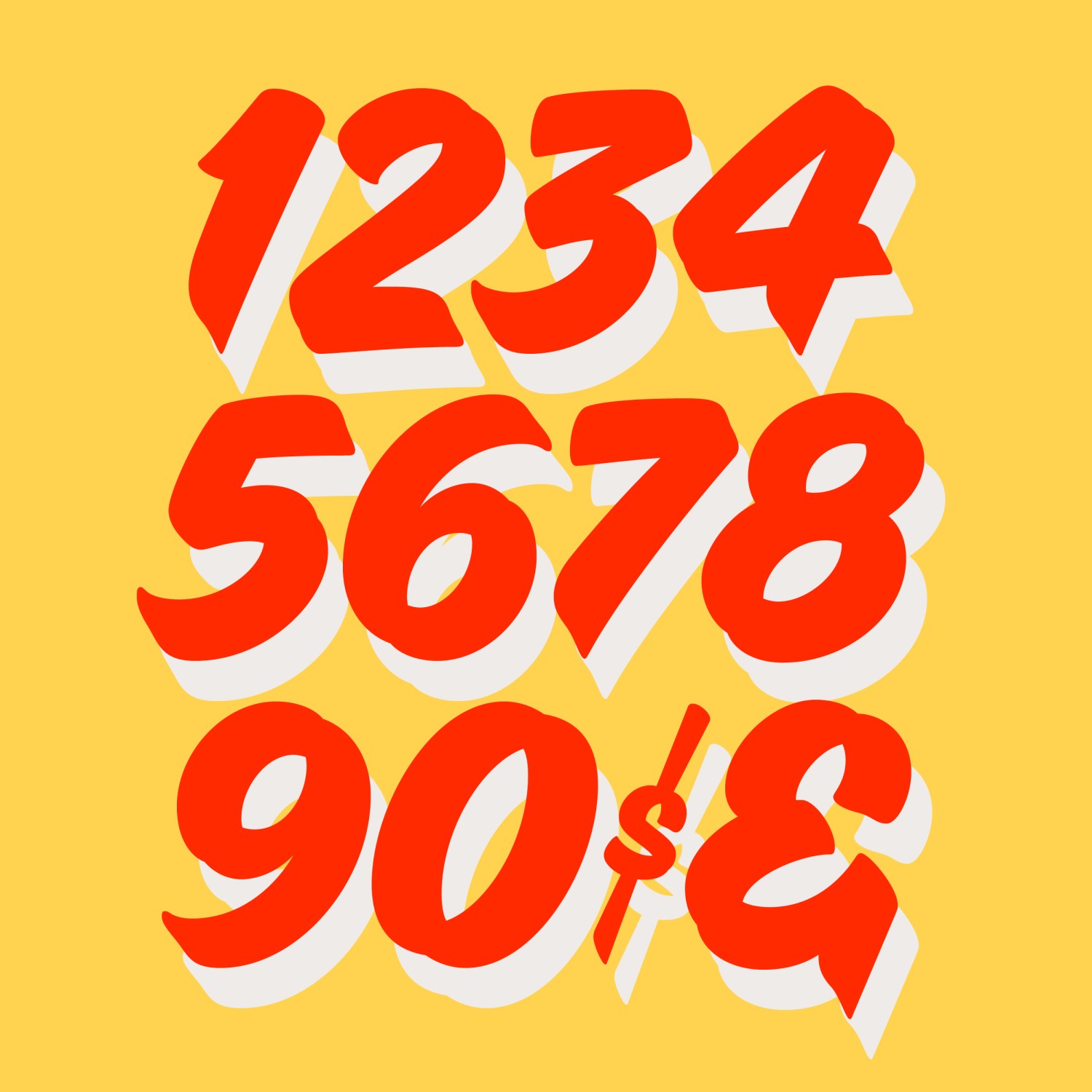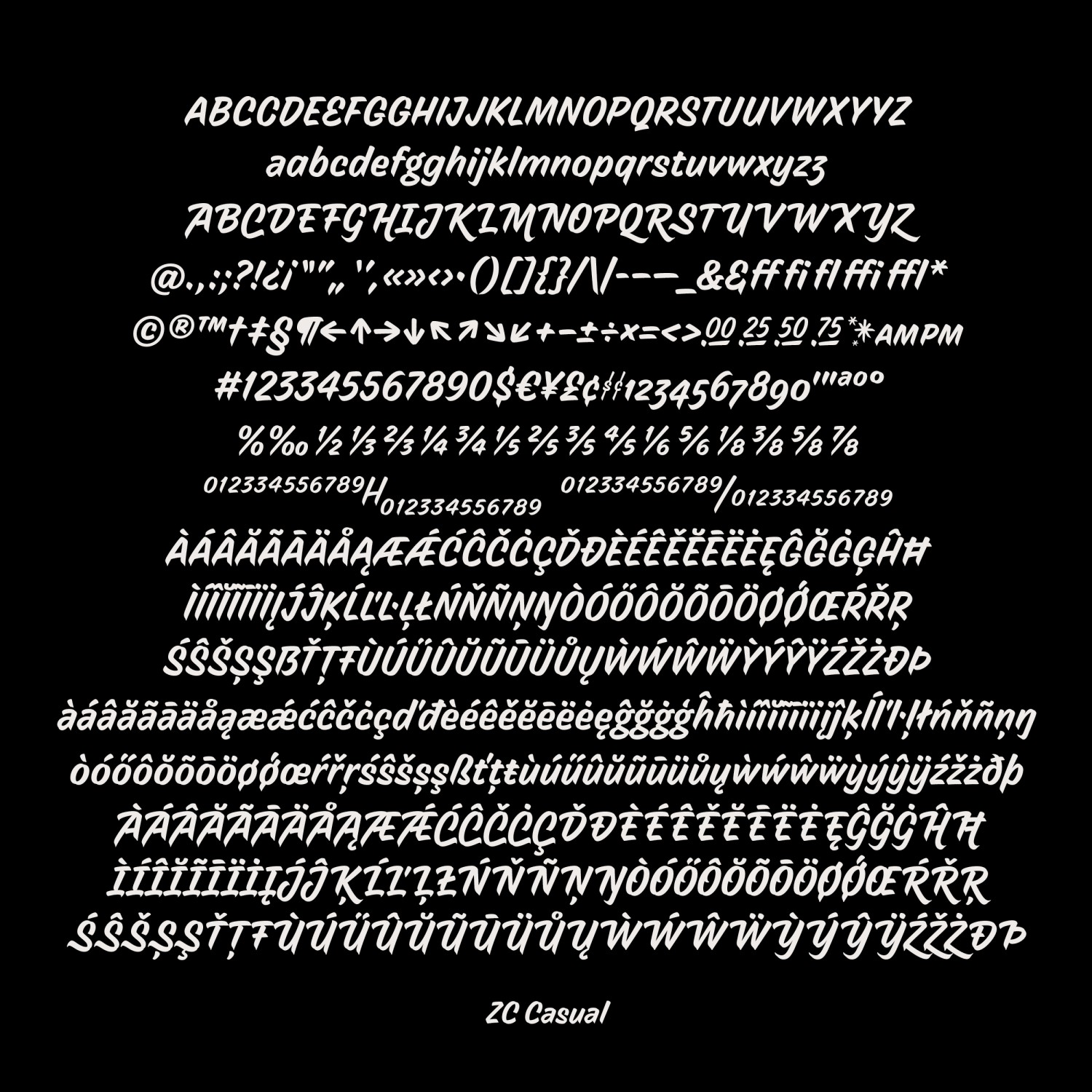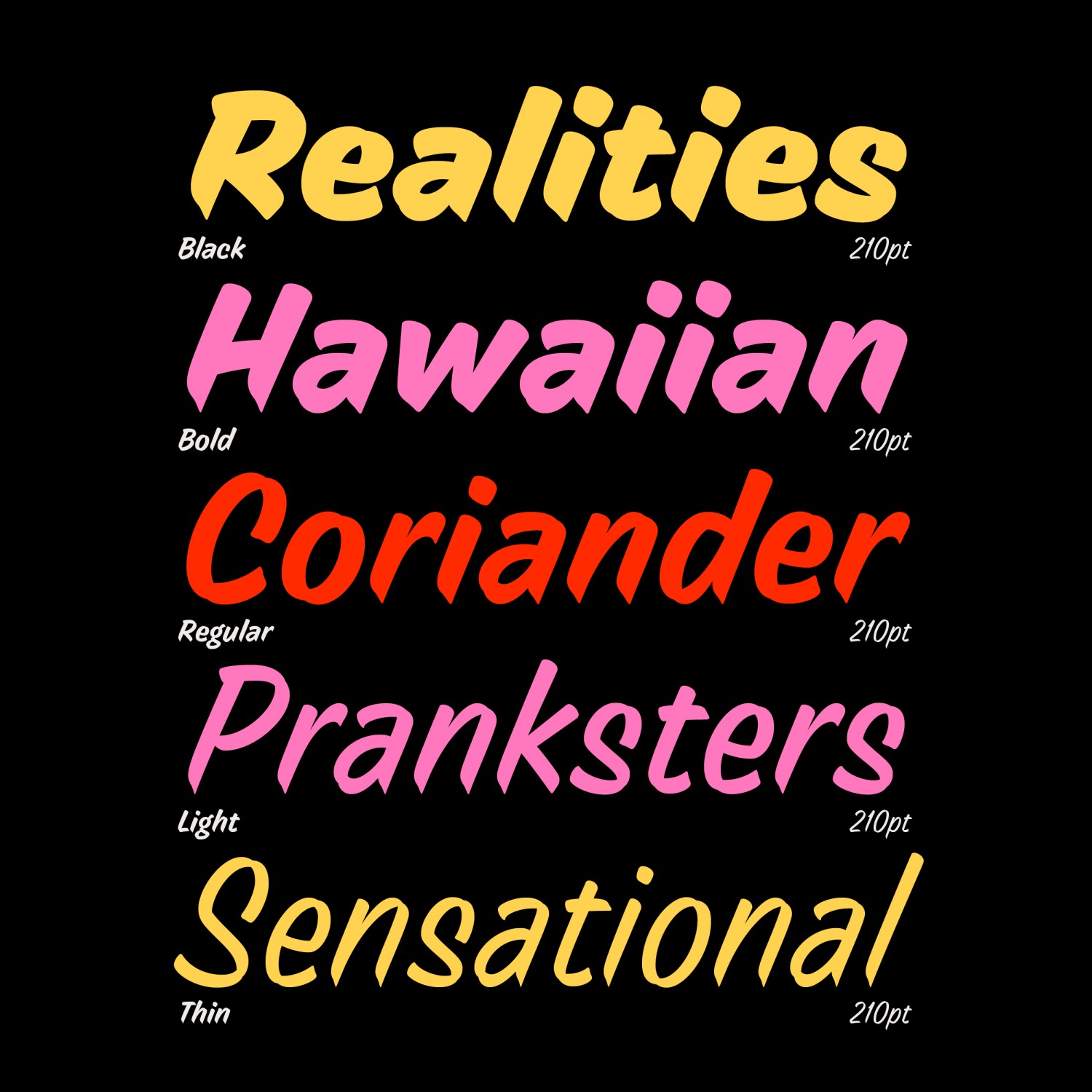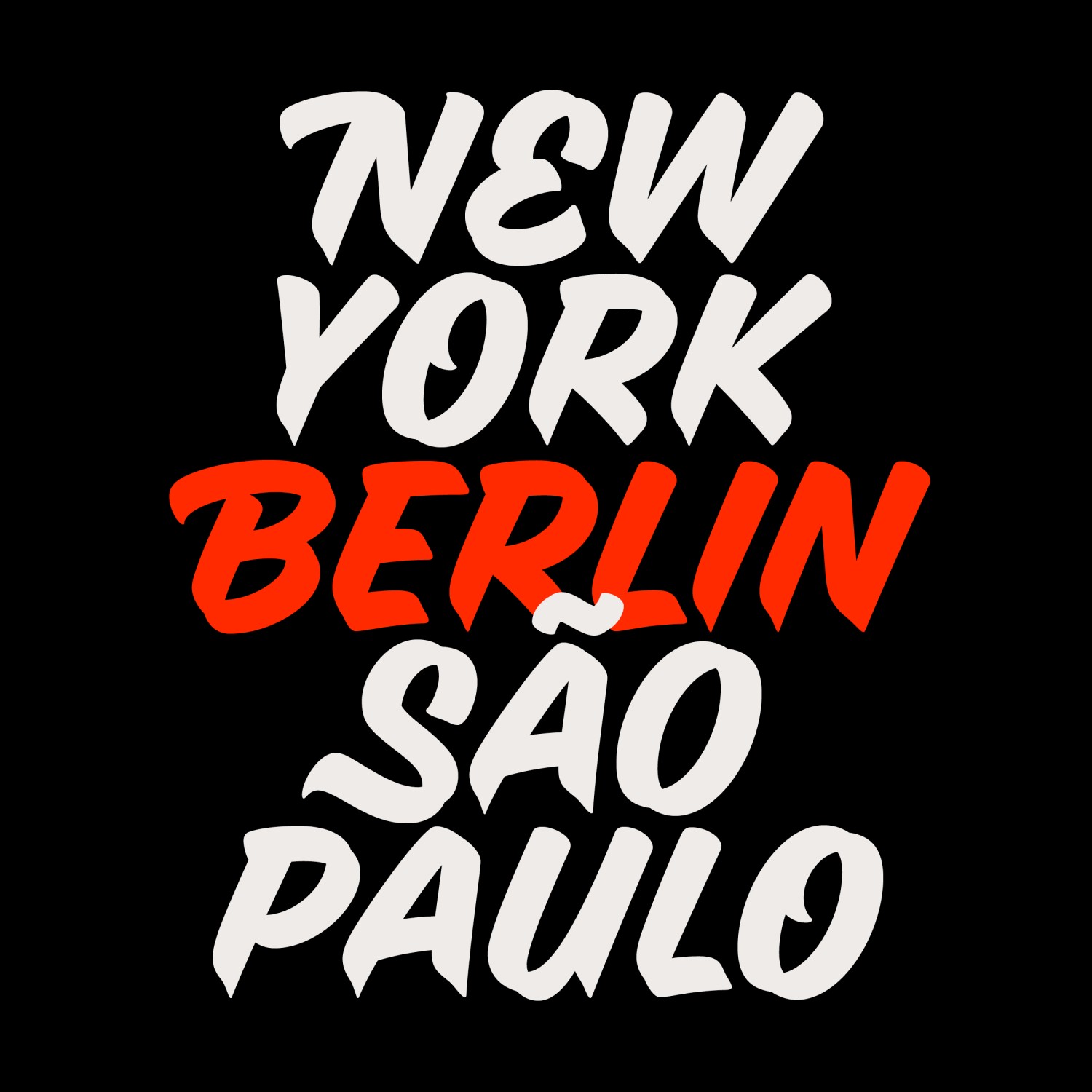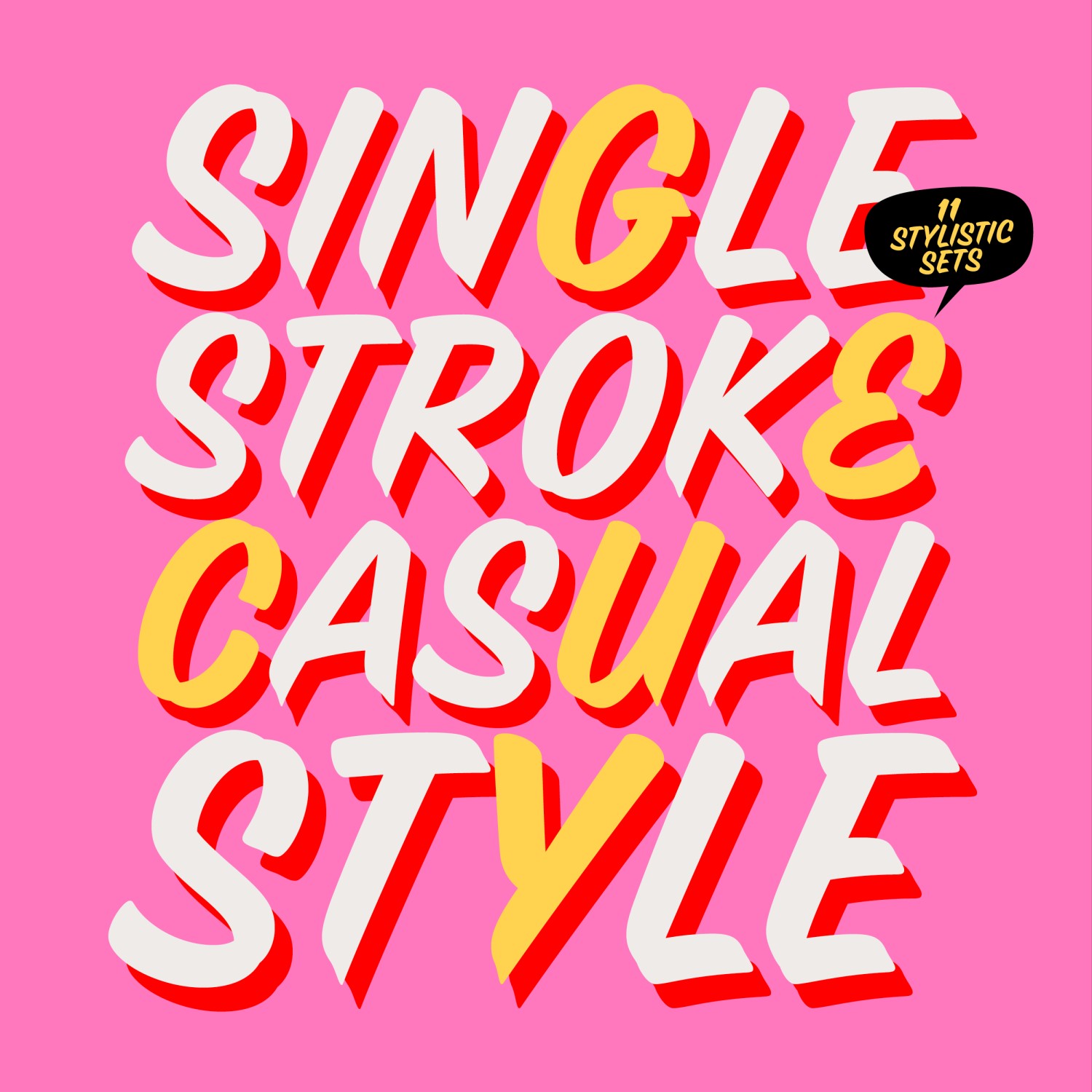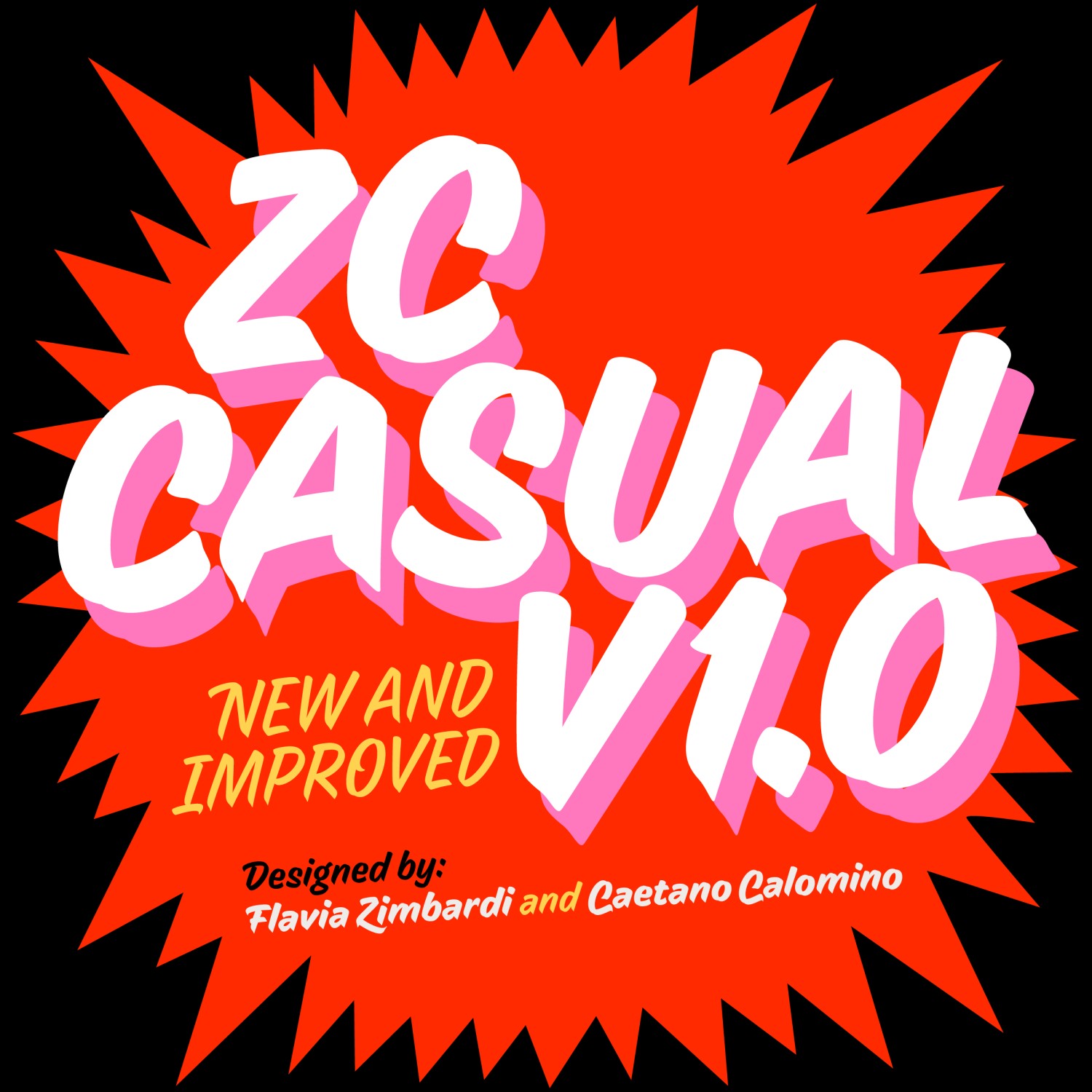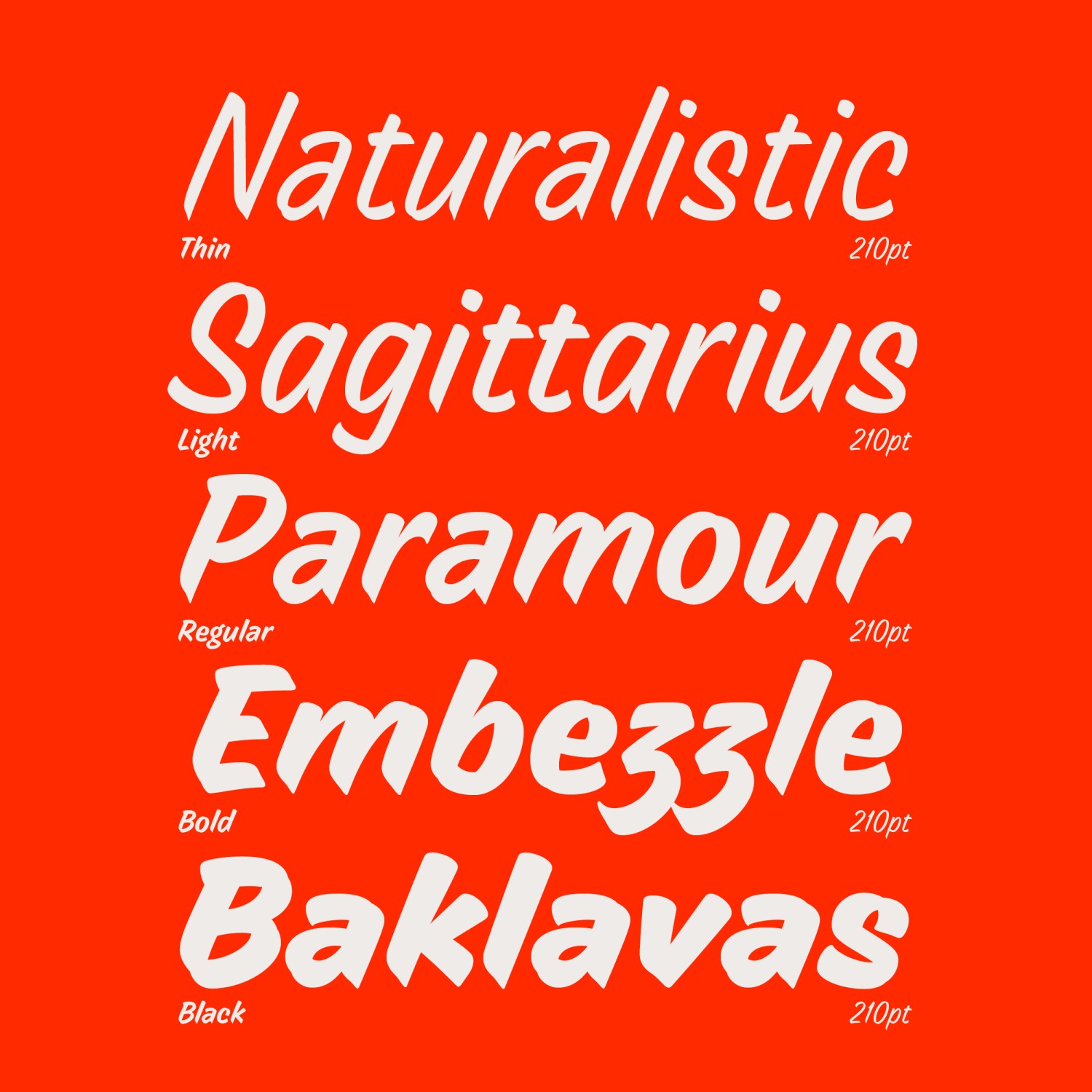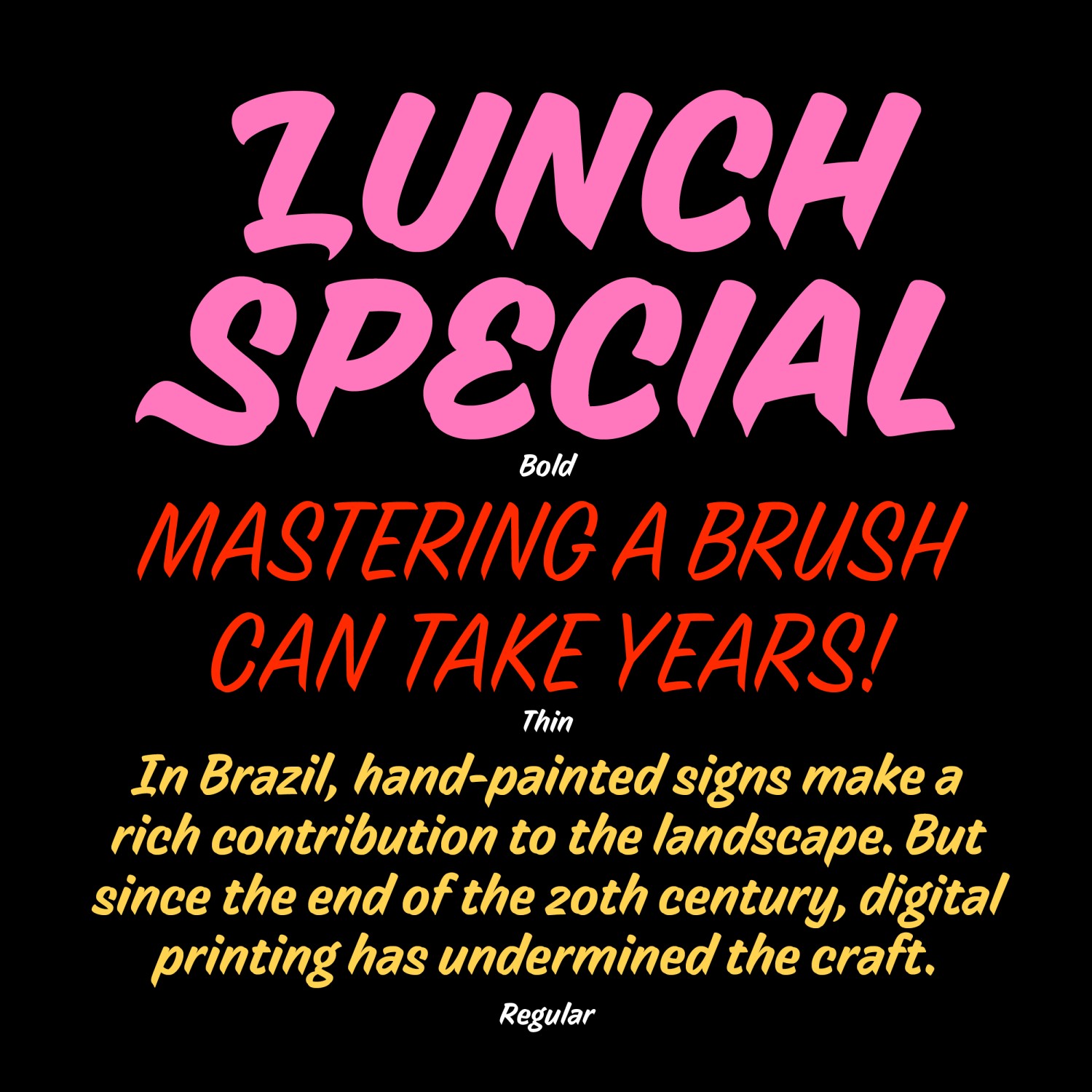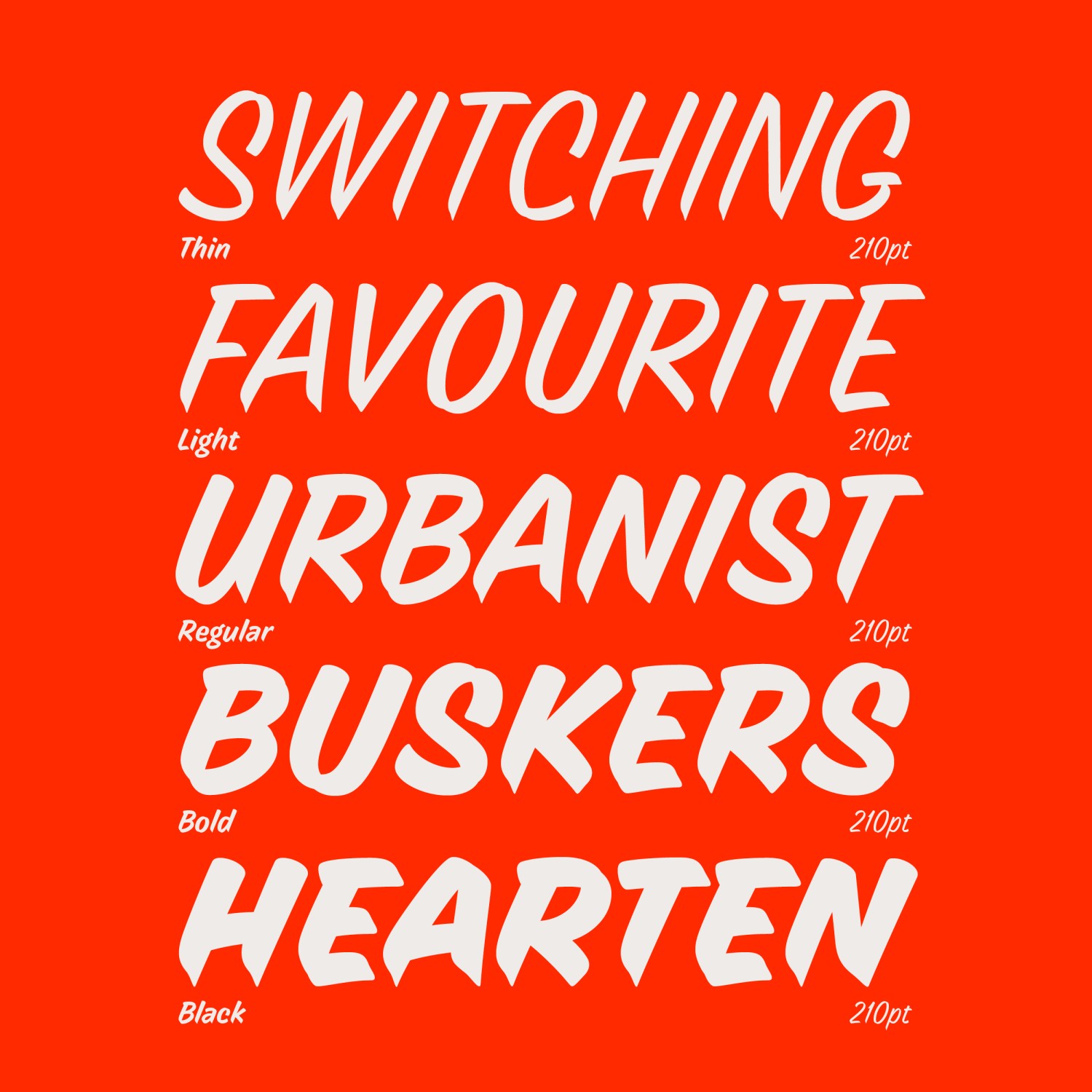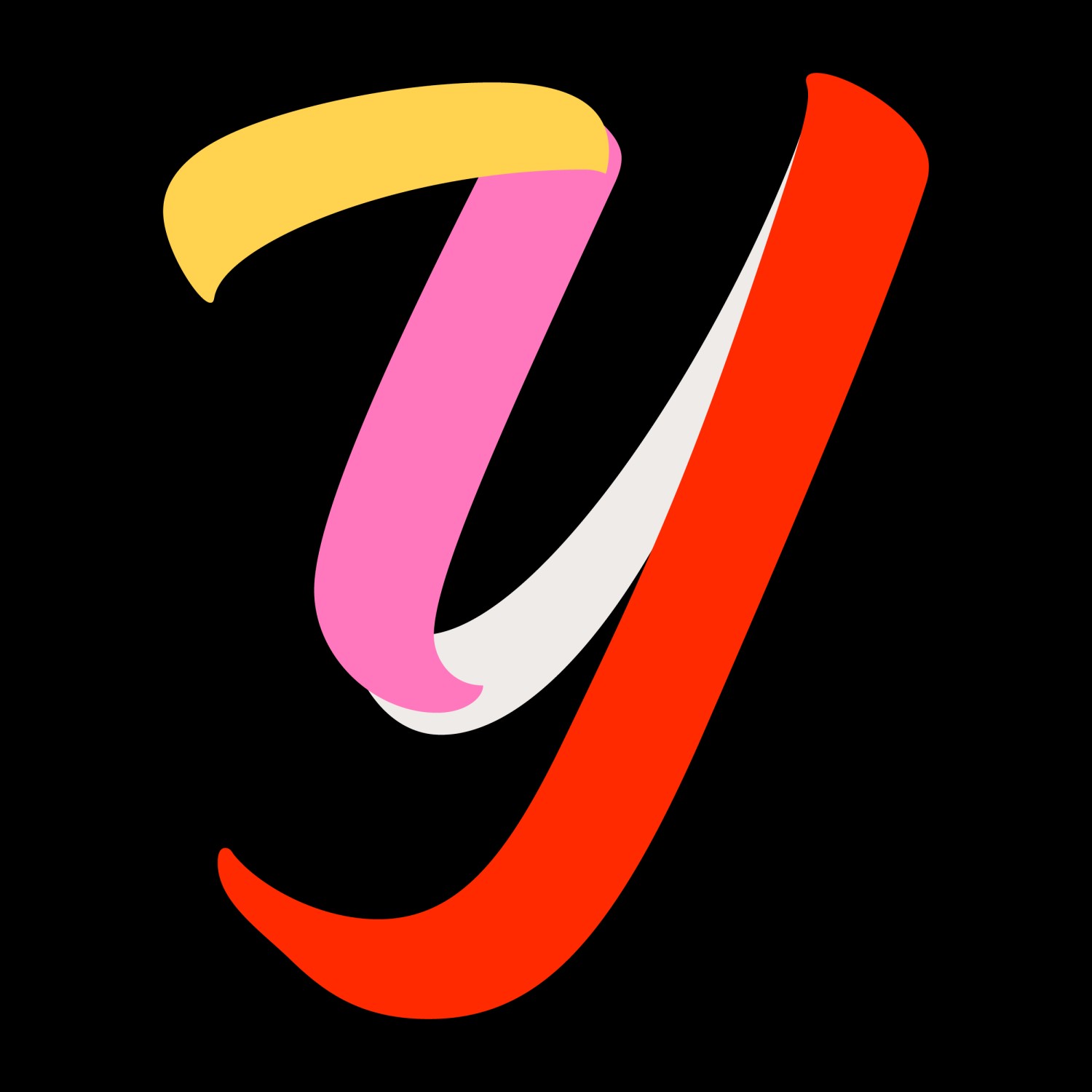
ZC Casual
5 Styles | Flavia Zimbardi, Caetano Calomino
The single stroke casual style, often known as “speed stroke”, has been a staple in North American sign painting for over 75 years. But what if we give it a Brazilian spin? That’s ZC Casual—a dynamic design full of mannerisms, authentic to Caetano Calomino’s brushwork. Stunning for show cards, versatile for comics, and oddly delightful in continuous text. The result of a true collaboration between analog and digital skills, from ink on paper to software.
• Designer: Flavia Zimbardi, Caetano Calomino
• Collaborators: Lu Leitenperger, Aline Kaori
• Engineering: Noe Blanco